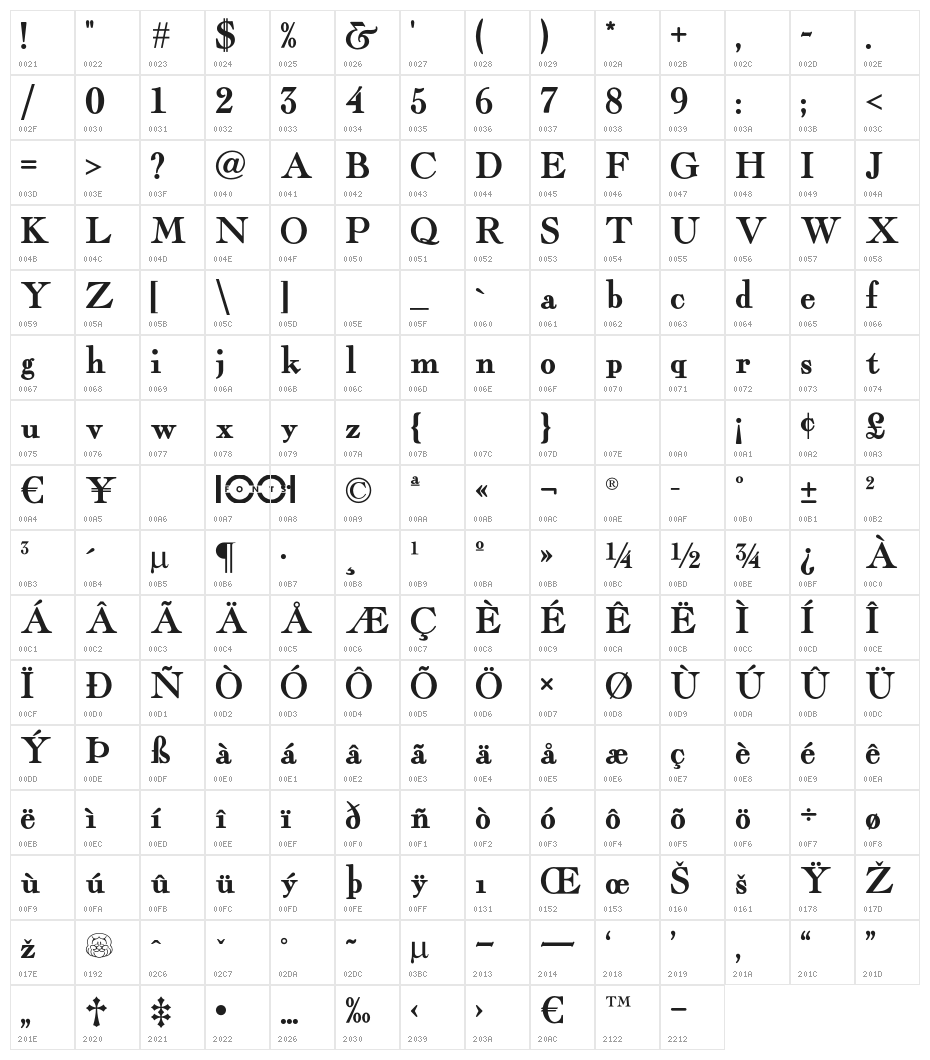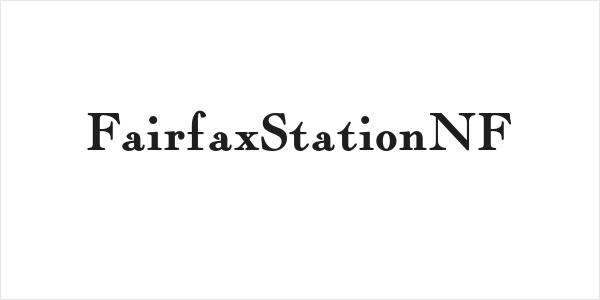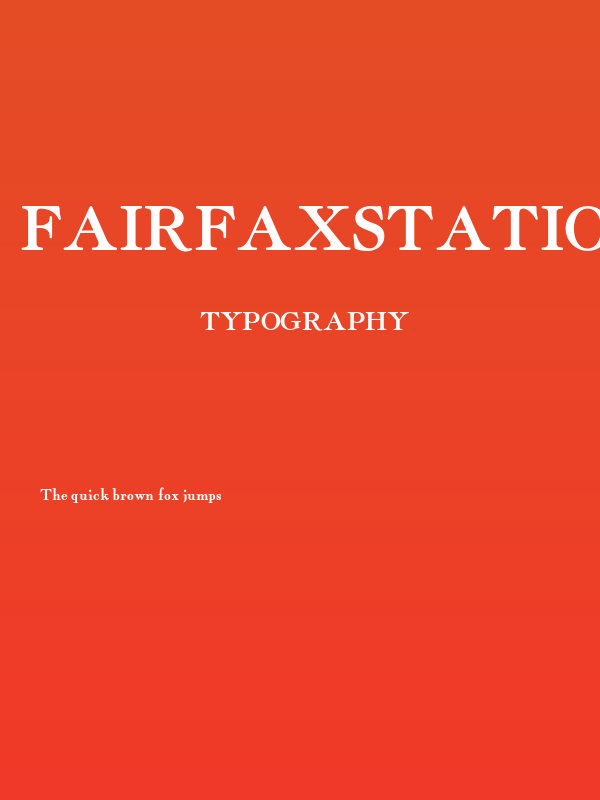
FairfaxStationNF Font
FairfaxStationNF Description
This font features a classic serif style with pronounced, elegant serifs that give it a traditional and sophisticated appearance. The uppercase letters are bold and commanding, while the lowercase letters maintain a consistent weight, providing a balanced look. The numerals are clear and distinct, with a slight flair that adds character. Special characters are well-defined, enhancing the font's versatility. The overall design is reminiscent of vintage typography, making it suitable for projects that require a touch of elegance and formality.
| Use Case | Headlines, Logos, Editorial design |
| Proposed Projects | Ideal for book covers, formal invitations, branding for luxury products, and editorial design. |